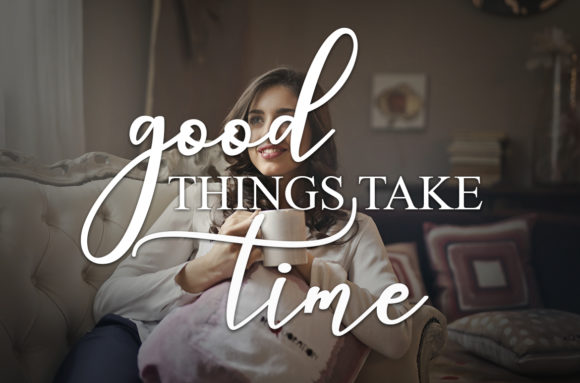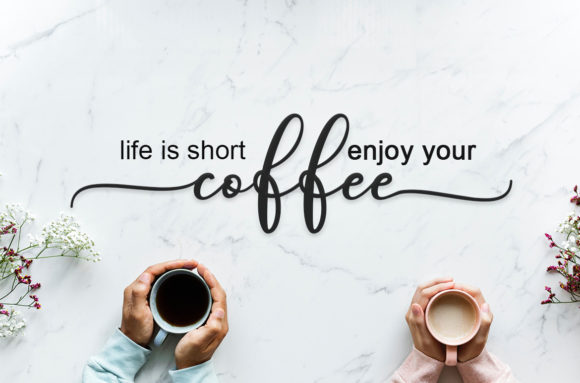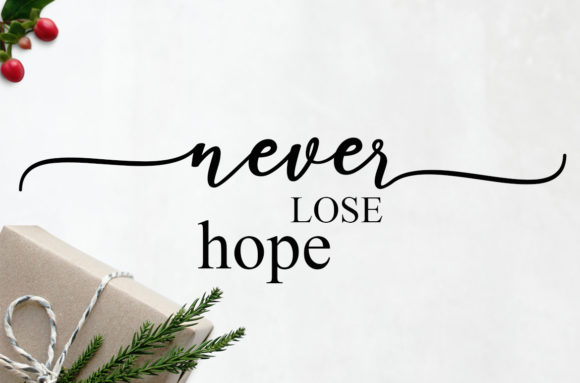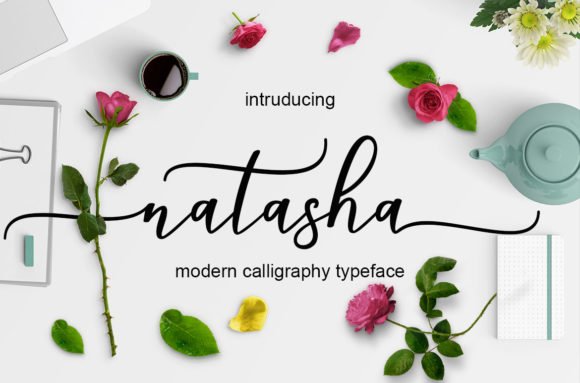
Introduction to Natasha Script Font
The Natasha is a fresh and modern script font.
It has a classy calligraphy style and includes amazing decorative characters Its handwritten style is perfect for invitations, greeting cards, branding materials, business cards, posters, and much more.
Key Features of Natasha Script Font
Why Choose Natasha Script Font?